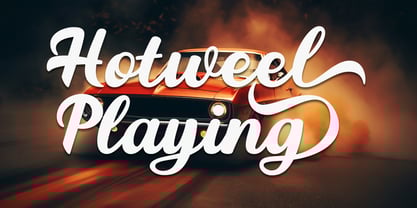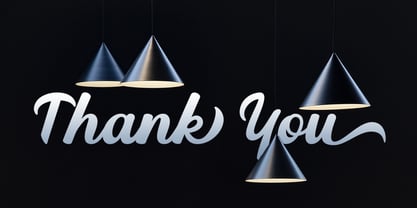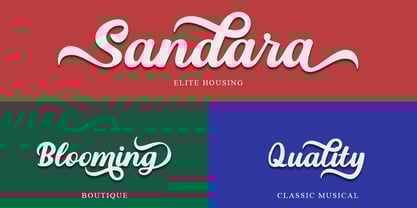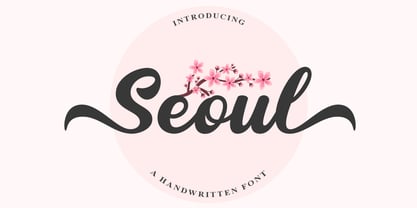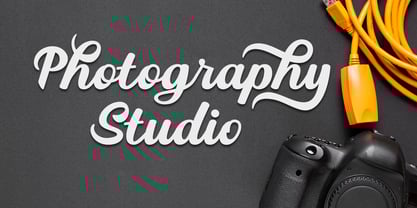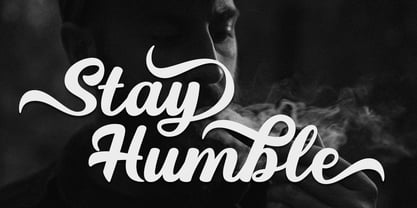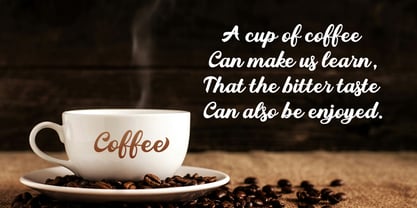
Seoul
The Seoul Font Family was designed by Ramadhan - and published by Mj Studio. Seoul contains 1 styles. More about this family
Introducing Seoul A Bold Fonts – a meticulously crafted, stylish font design, perfect for a variety of vector design and printing needs. This font is ideal for creating elegant digital wedding invitations, enhancing the look of blogs, strengthening online store branding, and adding a professional and modern touch to your social media presence. Additionally, Seoul A Bold Fonts is perfect for a wide range of printing applications, including apparel, accessories, bags, pins, logos, business cards, watermarks, and much more.
The main advantage of Seoul A Bold Fonts is its ability to create an elegant and captivating impression on any design, making your products or brand stand out with sophistication. Not only does this font offer a strong and bold appearance, but it also supports multiple languages, making it easy to tailor your designs for the global market.
Make every design project more special with Seoul A Bold Fonts – the font that will bring your creations to life, making them more modern, vibrant, and professional. There are no limits to your creativity, and we’re confident that this font will be the perfect choice for all types of designs. Get Seoul A Bold Fonts now and make your products even more captivating!
Seoul